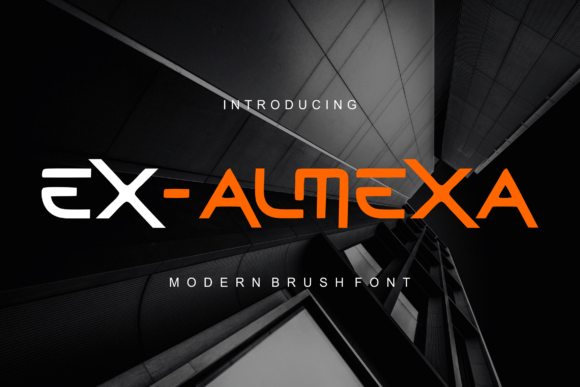
Unlocking Authenticity: The Power of Ex Almexa Font
As designers, we’ve all been there – staring at a blank page, trying to capture the essence of a brand or message. The perfect font can make all the difference. For those seeking a bold and authentic display font, look no further than Ex Almexa Font.
This versatile font is perfect for any branding project, from logos to t-shirt printing and beyond. Its unique character and style make it an invaluable asset for designers looking to add a touch of personality to their work. With Ex Almexa Font, you’ll be able to convey your message with confidence and style, setting your designs apart from the rest.
Ex Almexa Font Key Features
- Font Family: Ex Almexa is a typeface designed for display use, making it ideal for headlines and titles.
- Character Set: Supports a wide range of languages, including Latin, Cyrillic, and Greek alphabets, making it suitable for global applications.
- Unique Characteristics: Ex Almexa features a distinctive, modern design with a strong emphasis on geometric shapes and clean lines, making it stand out in digital and print applications.
Ex Almexa Font Review
Overall, I think Ex Almexa Font has some great qualities, but also some areas for improvement. ✨
- Unique Character: Ex Almexa Font has a distinctive look that sets it apart from other fonts. Its geometric shapes and sharp edges give it a modern, edgy feel.
- High Legibility: This font is easy to read, even at smaller font sizes. Its clean lines and clear letterforms make it perfect for body text.
- Good Versatility: Ex Almexa Font can be used for a variety of purposes, from digital interfaces to print materials.
- Difficult to Use for Headings: While Ex Almexa Font is great for body text, I find it challenging to use for headings due to its small x-height.
- Limited Font Sizes: Ex Almexa Font is best suited for smaller font sizes. It can become too condensed and difficult to read when used at larger sizes.
- No Italic or Bold Variations: Unfortunately, Ex Almexa Font lacks italic and bold variations, which can limit its use in certain contexts.
- ⚠️ Some Characters May Not Be Available: Be aware that some characters, such as punctuation marks and special characters, may not be available in this font.
Overall, Ex Almexa Font is a great choice for projects where you want a modern, edgy feel. However, it may not be the best option for every project, especially those requiring headings or larger font sizes.
Tips for Getting the Most Out of Ex Almexa Font
Ex Almexa Font is a versatile and elegant font that can be used in a variety of designs. To get the most out of it, try the following:
- Pair it with bold or italic font styles to create contrast and visual interest.
- Use it in combination with other elegant fonts to create a sophisticated design.
- Experiment with different font sizes and colors to create a unique and eye-catching design.
Ex Almexa Font is well-suited for a
Alternatives to Ex Almexa Font
Ex Almexa Font is a unique, hand-drawn font that works well for creative projects and designs that require a personal touch. However, there are several alternatives that can provide similar results.
Ostrich Sans is a modern, sans-serif font that offers a unique blend of elegance and playfulness. It’s ideal for designs that require a touch of sophistication and creativity. Compared to Ex Almexa Font, Ostrich Sans has a more geometric structure and is more versatile in its applications.
Great Vibes is a modern, script font that’s perfect for designs that require a touch of elegance and sophistication. It’s ideal for use in headings, titles, and other design elements where a personal touch is required. Compared to Ex Almexa Font, Great Vibes has a more fluid, cursive structure and is better suited for designs that require a sense of movement and flow.
Yes, Ex Almexa is suitable for use in digital signage and display applications. The font is designed to be highly legible at a variety of sizes and resolutions, making it an excellent choice for displays and signage.